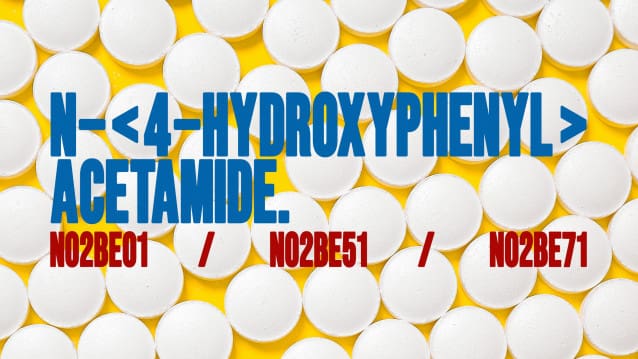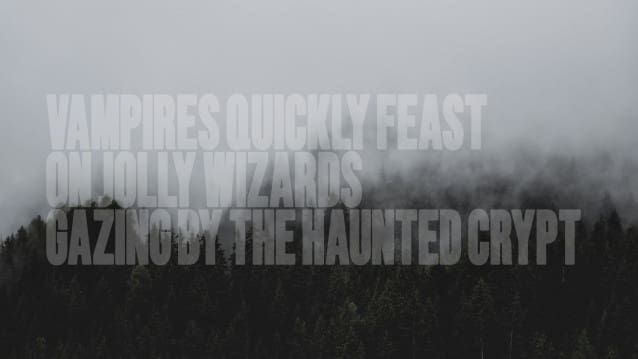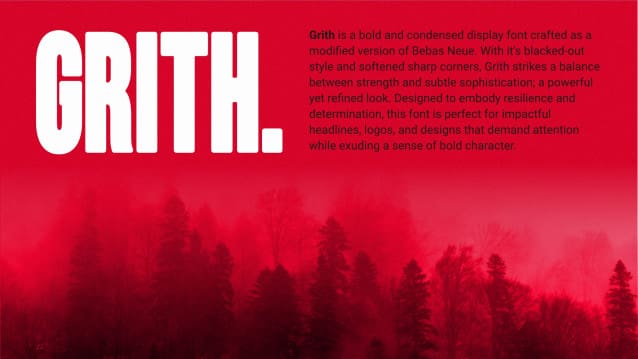
Grith Font
Grith Font is a bold and condensed display font crafted as a modified version of Bebas Neue. With it’s blacked-out style and softened sharp corners, Grith strikes a balance between strength and subtle sophistication; a powerful yet refined look. Designed to embody resilience and determination, this font is perfect for impactful headlines, logos, and designs that demand attention while exuding a sense of bold character.